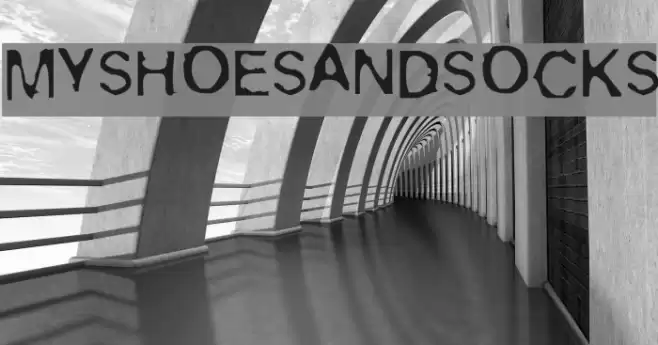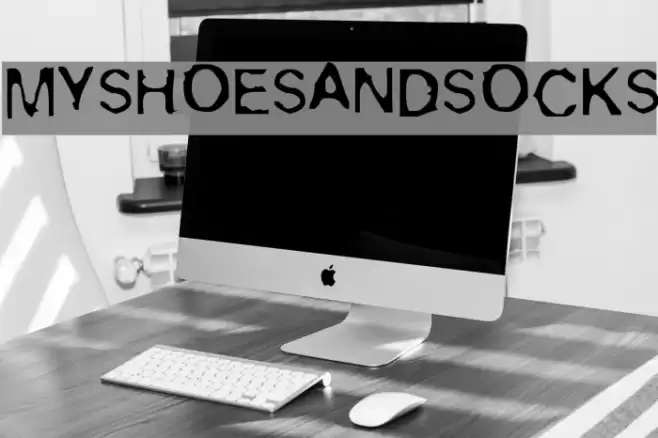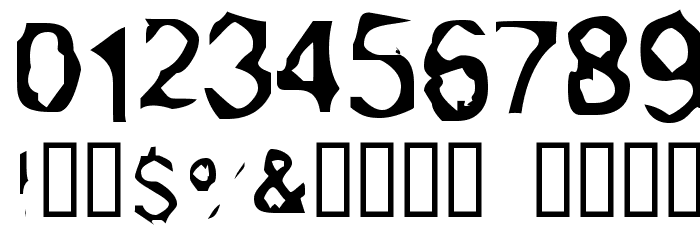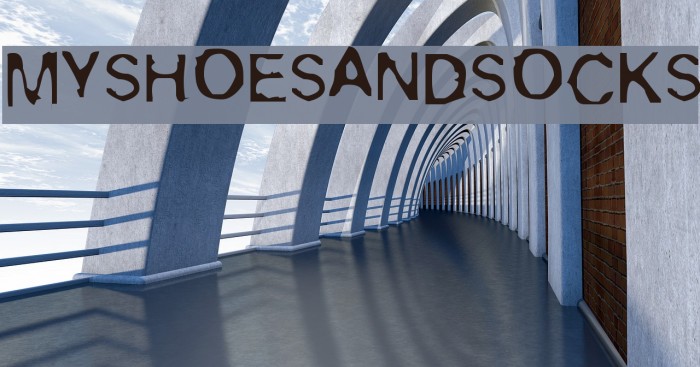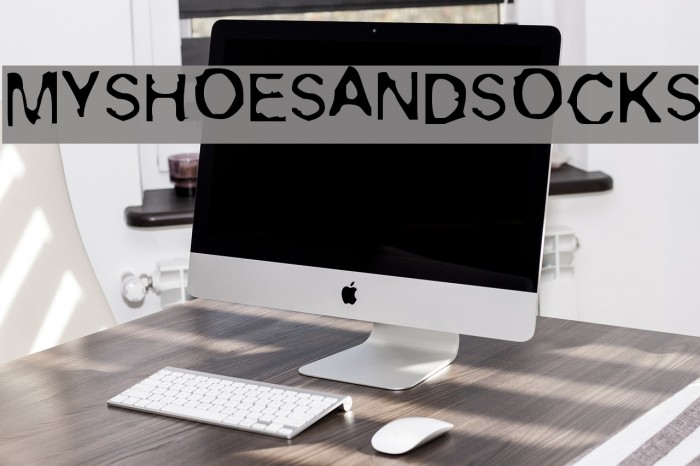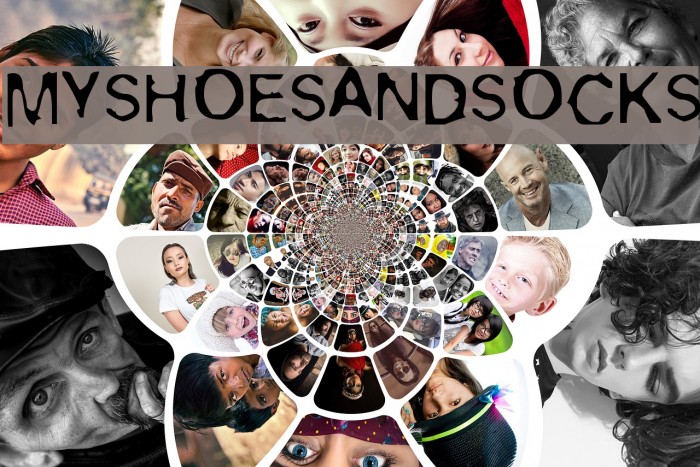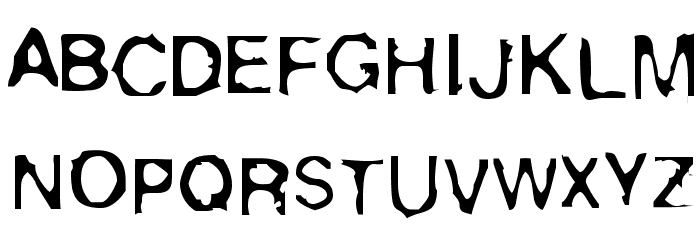
MyShoesAndSocks Font
MyShoesAndSocks Description
This font features a rugged and distressed appearance, with uneven edges and a hand-crafted feel. The characters are bold and impactful, with a unique style that suggests a sense of rawness and authenticity. The uppercase and lowercase letters maintain a consistent height, while the numbers and special characters follow the same distressed aesthetic. The font's irregularities give it a dynamic and energetic look, making it suitable for projects that require a bold statement or an edgy, artistic touch.
A bold, distressed font with a rugged, hand-crafted appearance from Uncategorized fonts.
- Proposed Projects: Ideal for album covers, posters, branding for edgy or alternative products, and any design needing a bold, artistic statement.